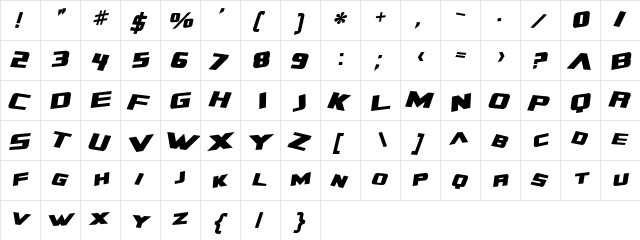
Zero Gravity Extended Bold Italic
Design Context for Zero Gravity Extended Typeface
Zero Gravity Extended offers clean, dependable letterforms without strong stylistic allegiance, making it a practical choice for designers who need flexibility. The slanted form adds forward momentum and visual energy. The heavy weight commands attention and anchors typographic hierarchies.
Pro Tip: Use Zero Gravity Extended for emphasis, pull quotes, and subheadings where its slanted energy can add rhythm to the layout.